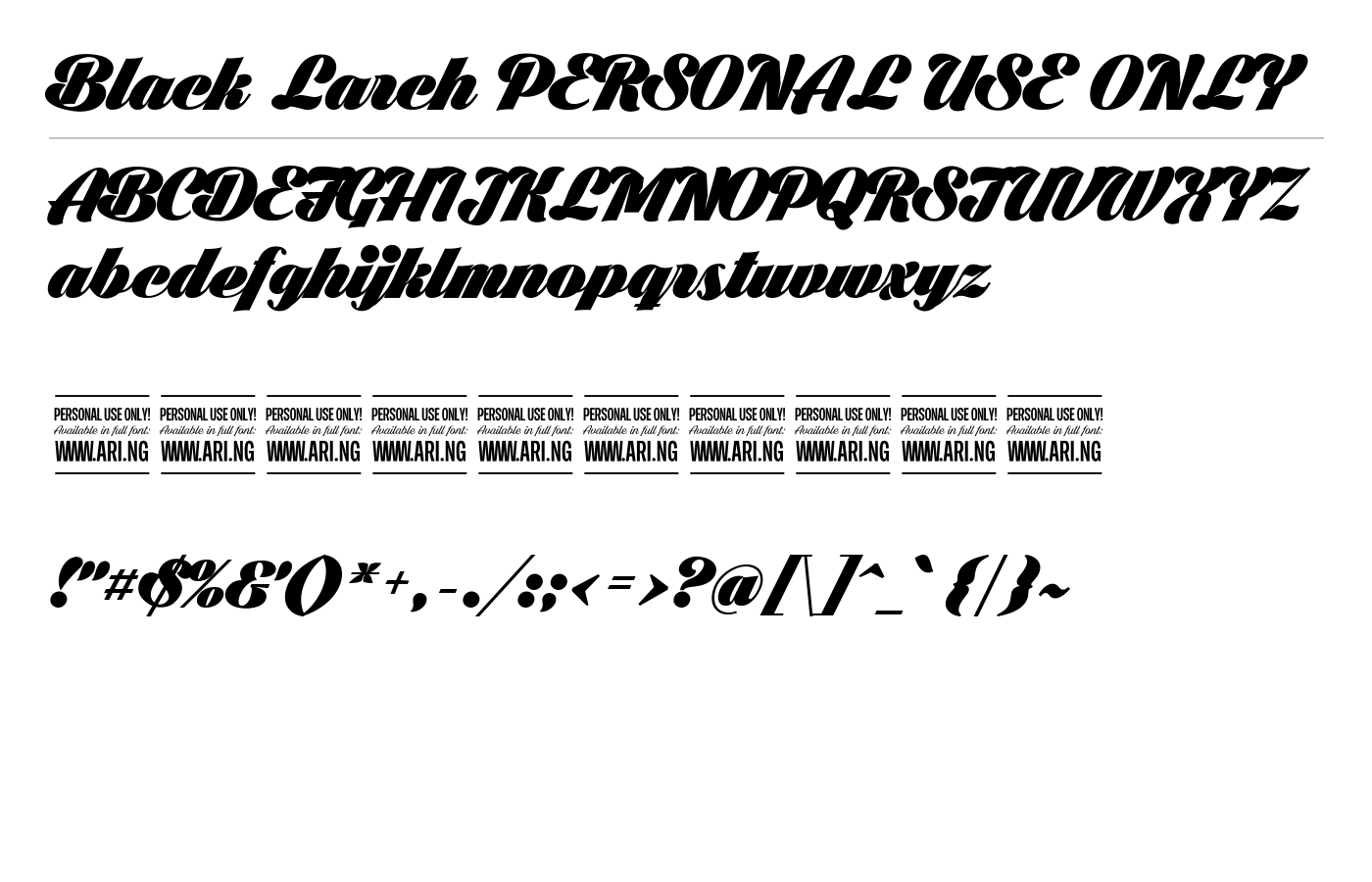
Black Larch is a bold, cursive script font with a strong, vintage flair, characterized by thick, high-contrast strokes and smooth, flowing curves. Its dramatic weight and elegant italic slant make it ideal for eye-catching headlines, logos, and packaging where a stylish, classic personality is desired. This font works well for brands seeking a luxurious yet approachable feel, combining both sophistication and boldness.
Black Larch PERSONAL USE ONLY Font
About Black Larch PERSONAL USE ONLY Font
| Font family | Black Larch PERSONAL USE ONLY Font |